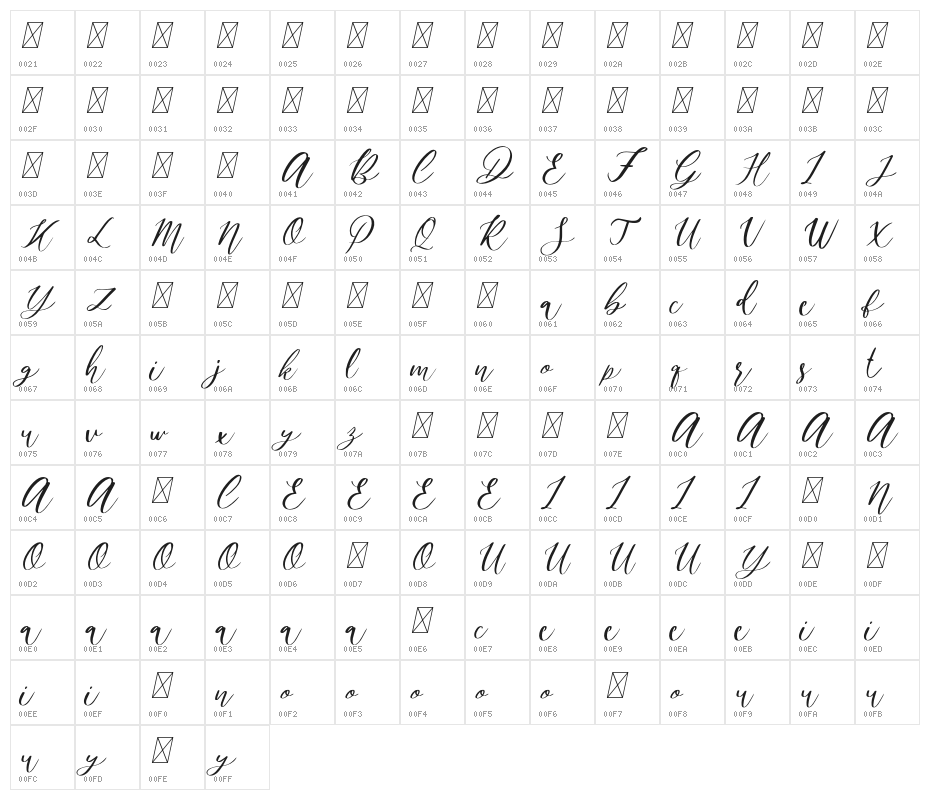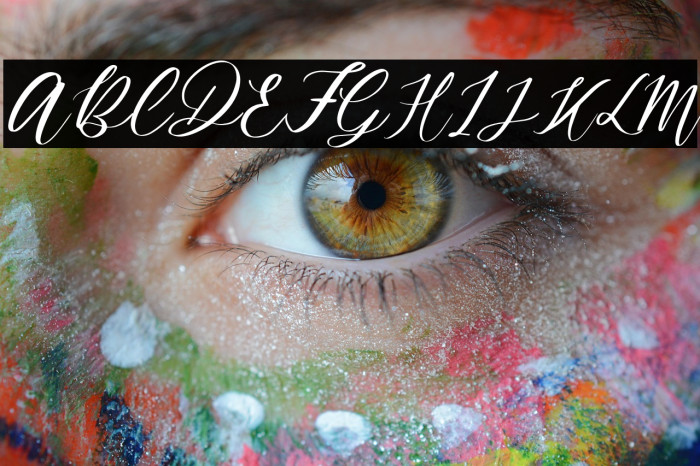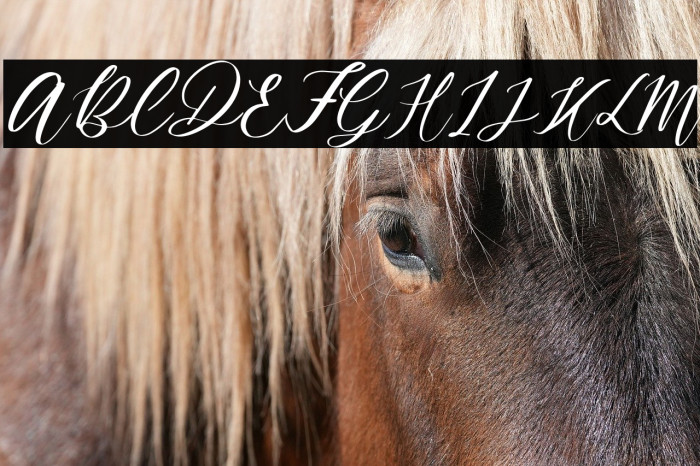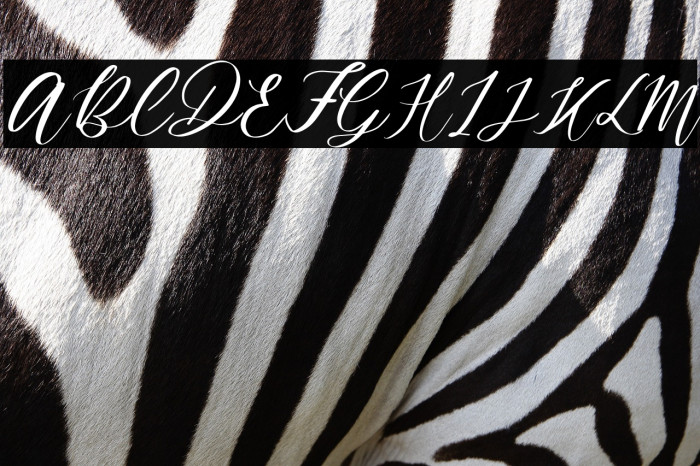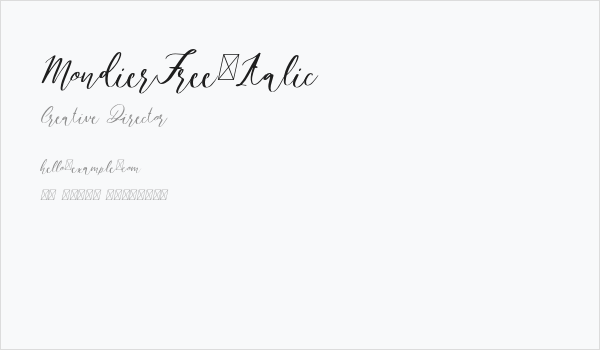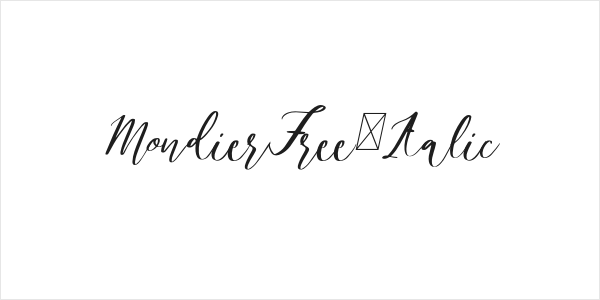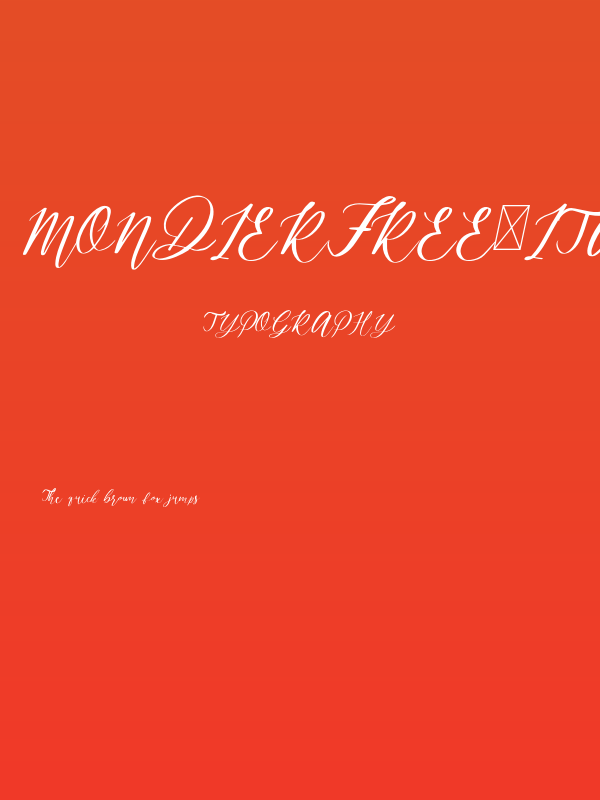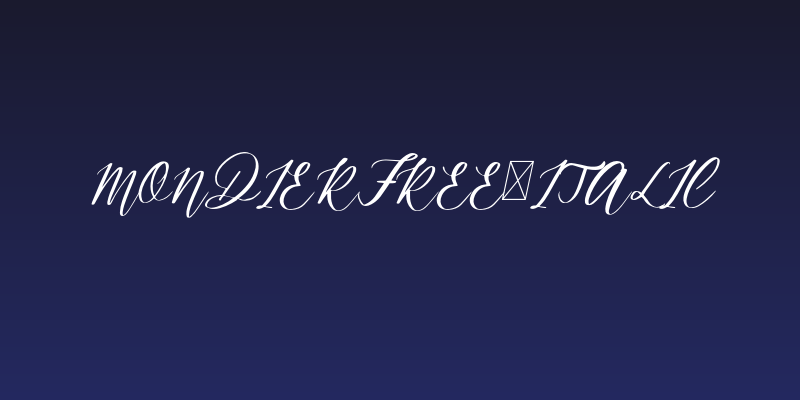
MondierFree-Italic Font
MondierFree-Italic Description
This font features a flowing, cursive style with elegant, sweeping strokes that give it a sophisticated and artistic appearance. The uppercase letters are bold and expressive, with unique flourishes that add a touch of flair. The lowercase letters maintain a consistent, smooth flow, enhancing readability while preserving the decorative nature. The font's italic slant adds a dynamic feel, making it suitable for creative and formal applications. The absence of numbers and special characters suggests a focus on alphabetic expression, ideal for titles and artistic text displays.
| Use Case | Headlines, Artistic text, Invitations |
| Proposed Projects | Ideal for wedding invitations, greeting cards, artistic posters, and branding materials that require a touch of elegance and creativity. |